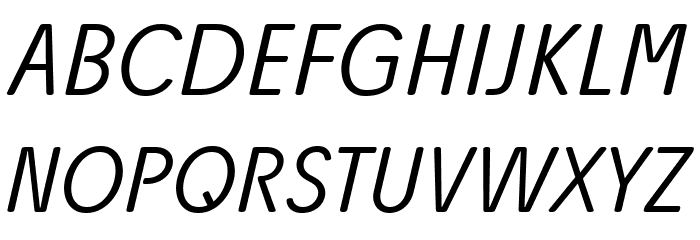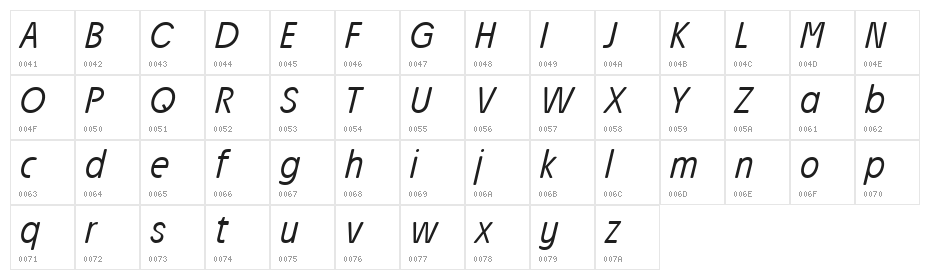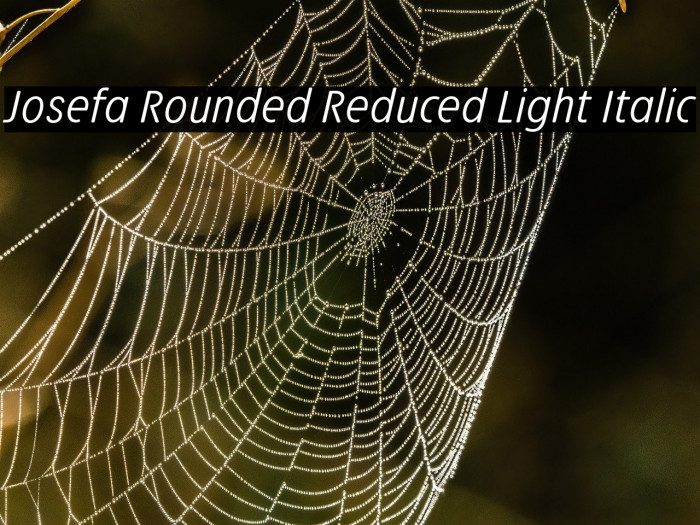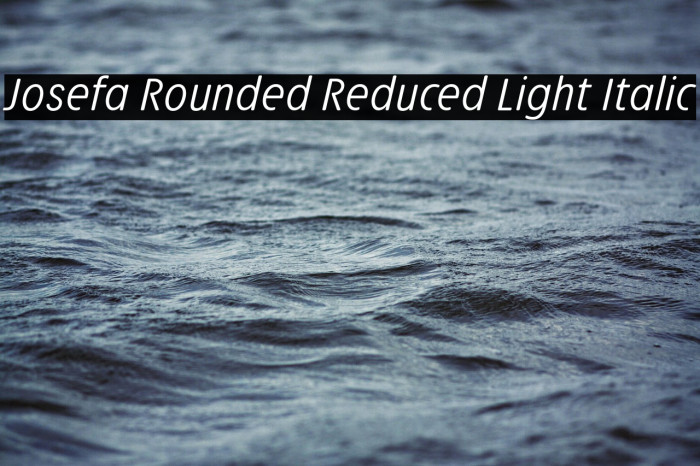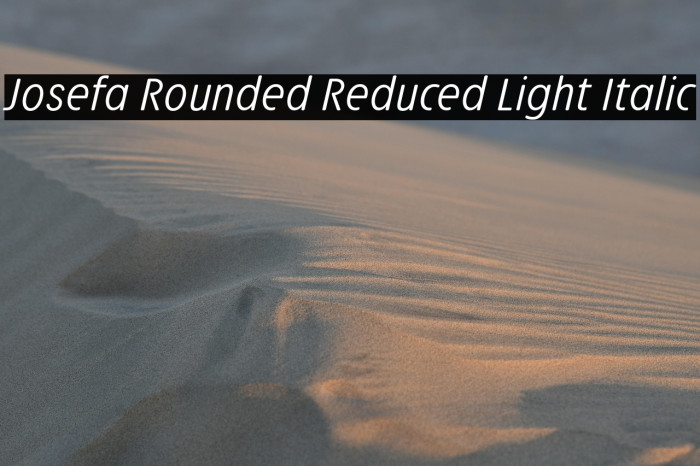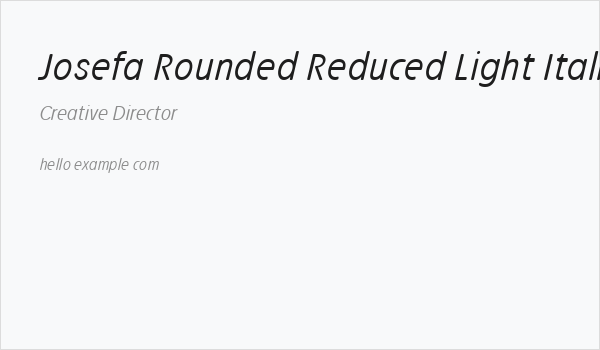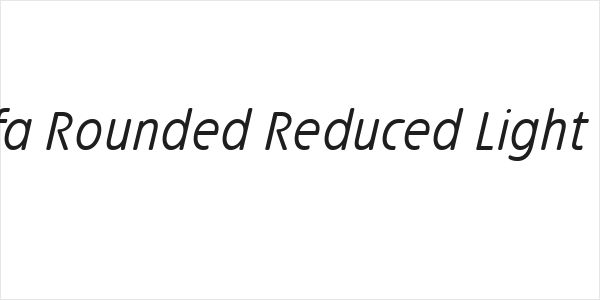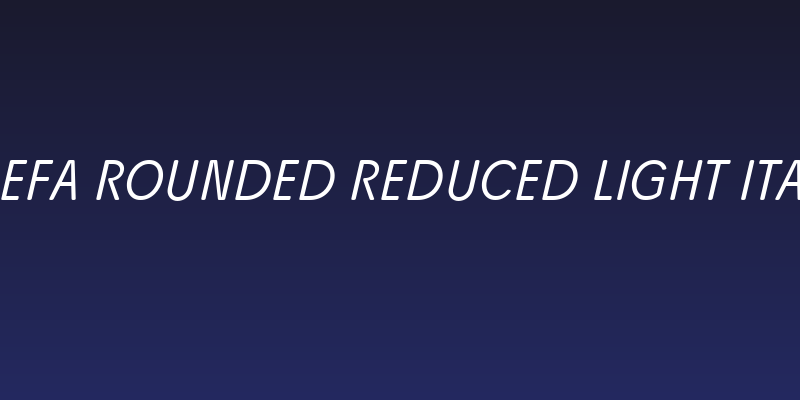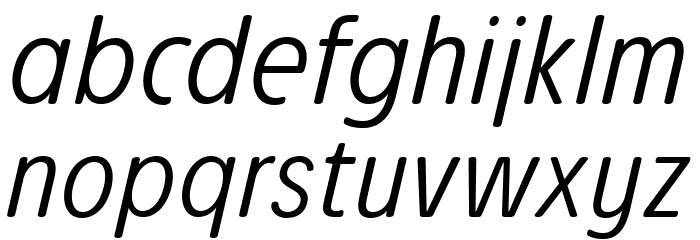
Josefa Rounded Reduced Light Italic Font
Josefa Rounded Reduced Light Italic Description
This font features a sleek and modern design with rounded edges that give it a friendly and approachable appearance. The light weight of the strokes contributes to its airy and elegant feel, making it suitable for a variety of design contexts. The italic style adds a dynamic and fluid touch, enhancing its versatility. The characters are well-proportioned, with a consistent height and width that ensures readability. The font's smooth curves and clean lines make it ideal for projects that require a contemporary and professional look.
| Proposed Projects | Ideal for branding, advertising, web design, and editorial projects where a modern and approachable aesthetic is desired. |